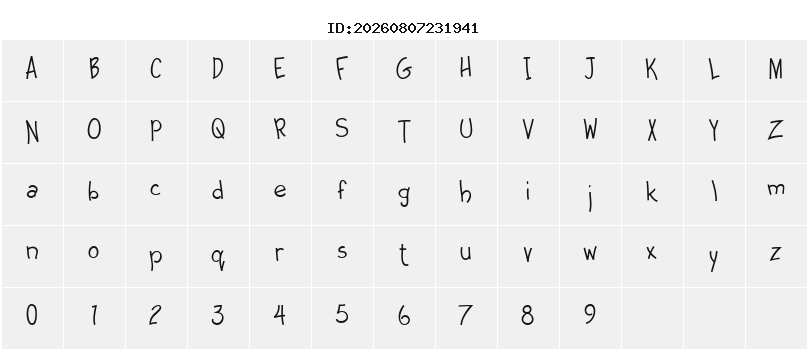
Pumpkin Pie Preview
• Font Name: Pumpkin Pie
• Font ID: Macromedia Fontographer 4.1.5 Pumpkin Pie
• Full Font Name: Pumpkin Pie
• Version: Macromedia Fontographer 4.1.5 3/10/04
• PostScript Name: PumpkinPie
• Character Count: 195
About Pumpkin Pie.ttf
Pumpkin Pie.ttf is a modern, elegant sans-serif font designed for ultimate readability and visual harmony. Perfect for branding, headlines, web design, and print materials.